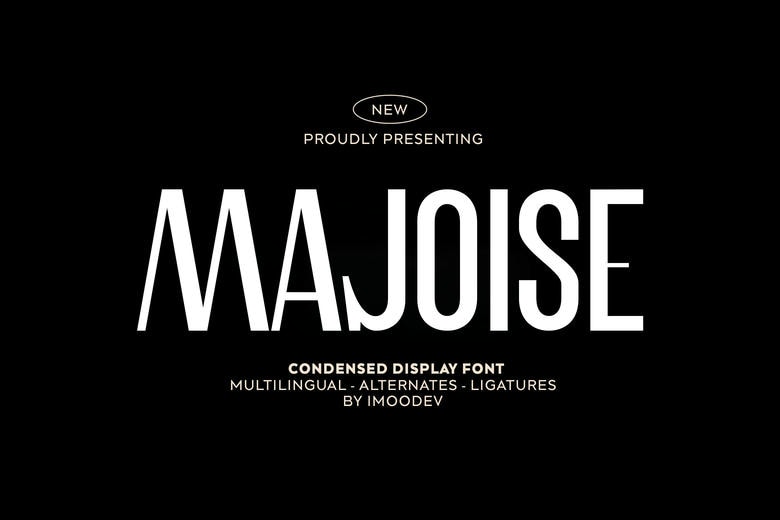
Majoise Font
Majoise is a large condensed display type which was used to capture attention. Designed to exude the sleek modernism of the 2000s, Majoise offers a new generation of modernist-inspired geometric shapes with a hint of 21 st century playfulness and a wide range of alternates.
When stylish crisp beauty is needed, its design works well in projects that have to bring a statement. The Majoise font works best in branding, packaging, editorial layouts, posters and in ads. It does not confine itself to austere minimalism or loud outspokenness, but strikes a perfect balance between both, making it an easy to use font in terms of fashion campaign, food labels, eye-catching websites headlines and top-notch creative works.
Majoise Display Font